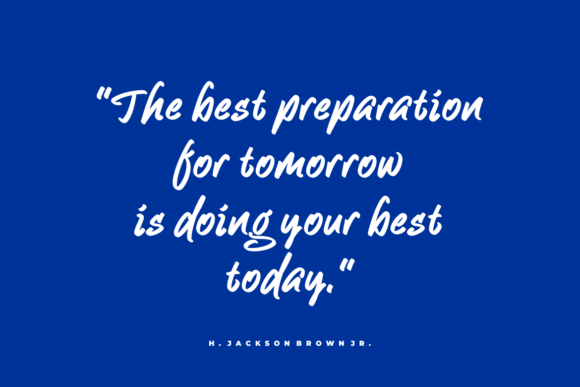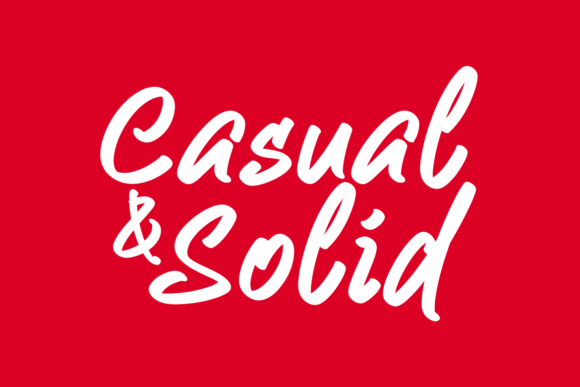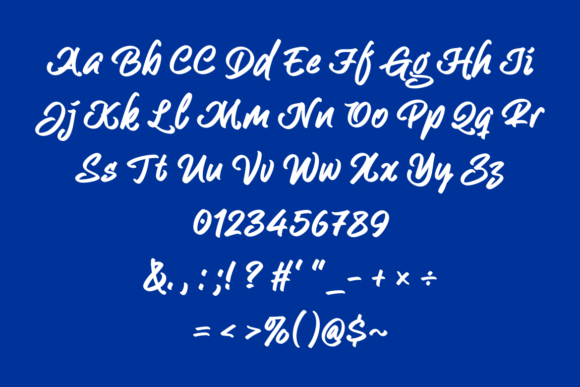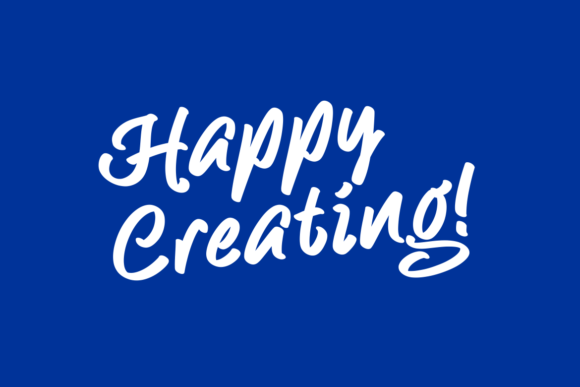
Bhangs Font: The Ultimate Modern Handwritten Brush Font for Designers
In the world of typography, fonts play a crucial role in conveying the tone and personality of a brand or design. For designers and crafters looking for a cool and modern handwritten brush font, Bhangs is an excellent choice. With its casual charm, Bhangs appears wonderfully down-to-earth, readable, and incredibly versatile, making it perfect for a wide range of design applications.
The Characteristics of Bhangs Font
Bhangs is a modern handwritten brush font that boasts a unique and stylish aesthetic. Its casual and relaxed vibe makes it ideal for designs that require a friendly and approachable tone. The font’s brush strokes are fluid and natural, giving it a handcrafted feel that’s perfect for designs that require a personal touch.
One of the standout features of Bhangs is its readability. Despite its casual nature, the font is incredibly clear and easy to read, making it perfect for use in a variety of contexts, from busy backgrounds to standalone headlines.
The Versatility of Bhangs Font
Bhangs is an incredibly versatile font that can be used in a wide range of design applications. Whether you’re designing a logo, brochure, or social media graphic, Bhangs is sure to make a statement. Its modern and stylish aesthetic makes it perfect for designs that require a fresh and contemporary look.
One of the benefits of Bhangs is its ability to work well on busy backgrounds. The font’s bold and expressive strokes make it easy to read, even on complex and detailed backgrounds. This makes it perfect for designs that require a strong visual impact, such as posters, flyers, and billboards.
To get the most out of Bhangs, experiment with different colors, textures, and effects. The font’s bold and expressive strokes make it perfect for use with bold and bright colors, while its natural and handcrafted feel makes it ideal for use with earthy and organic textures.
Design Tips and Inspiration
For designers looking for inspiration, Bhangs can be used in a variety of creative ways. Here are a few design tips to get you started:
- Use Bhangs as a standalone headline to add a touch of personality to your design.
- Pair Bhangs with a simpler font to create a striking contrast.
- Use Bhangs on busy backgrounds to create a bold and eye-catching effect.
In conclusion, Bhangs is a cool and modern handwritten brush font that’s perfect for designers and crafters looking for a stylish and versatile typography solution. With its casual charm, readability, and versatility, Bhangs is sure to make a statement in any design application. Whether you’re designing a logo, brochure, or social media graphic, Bhangs is an excellent choice.